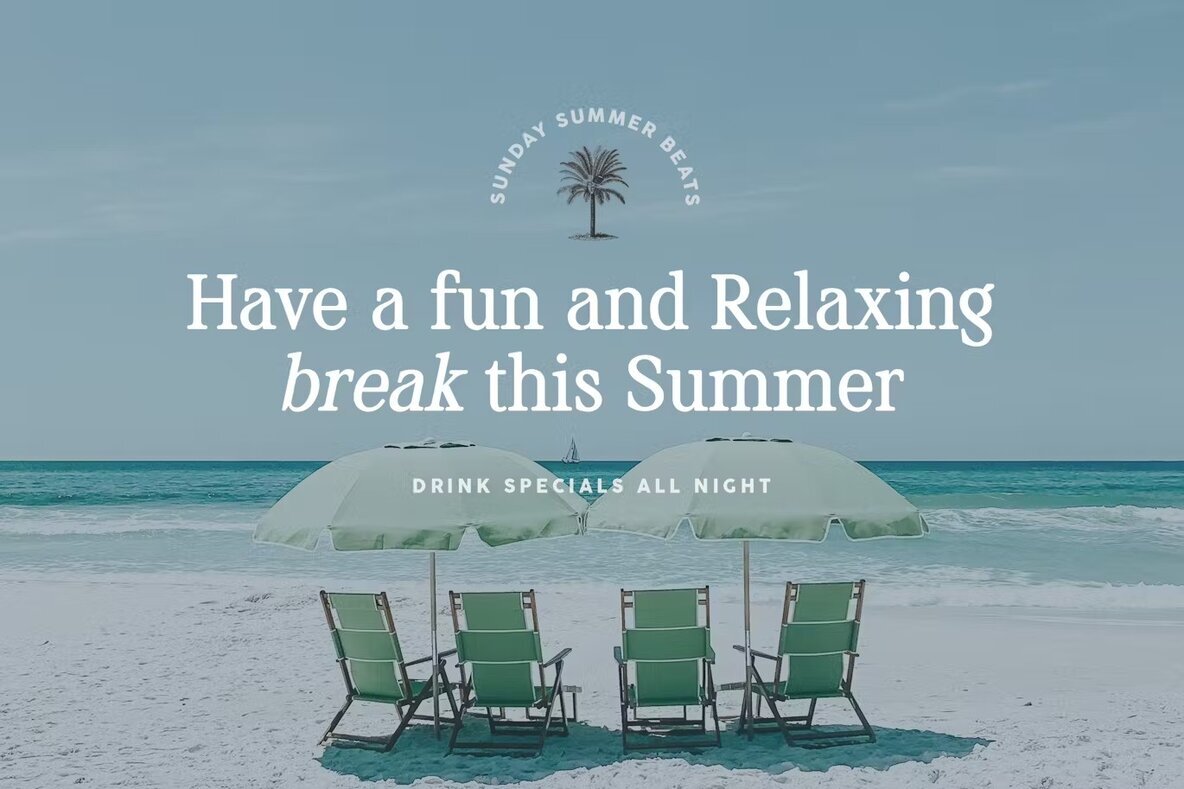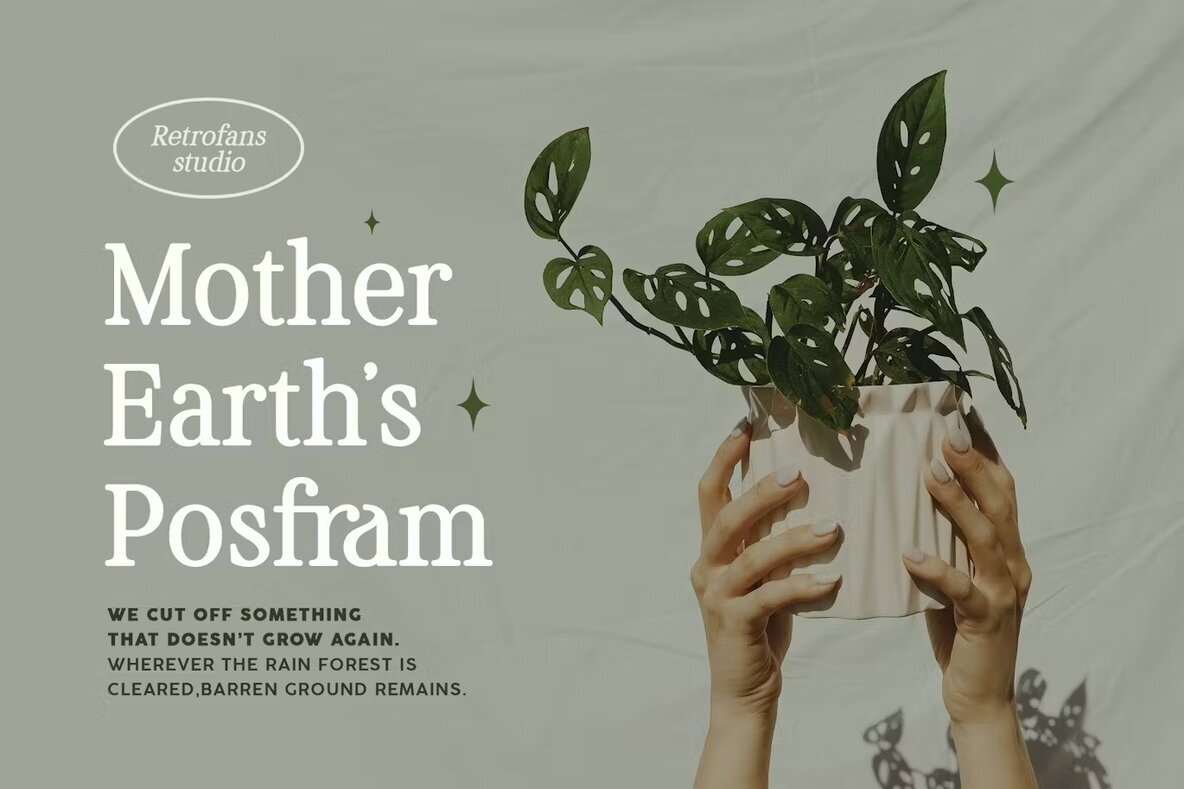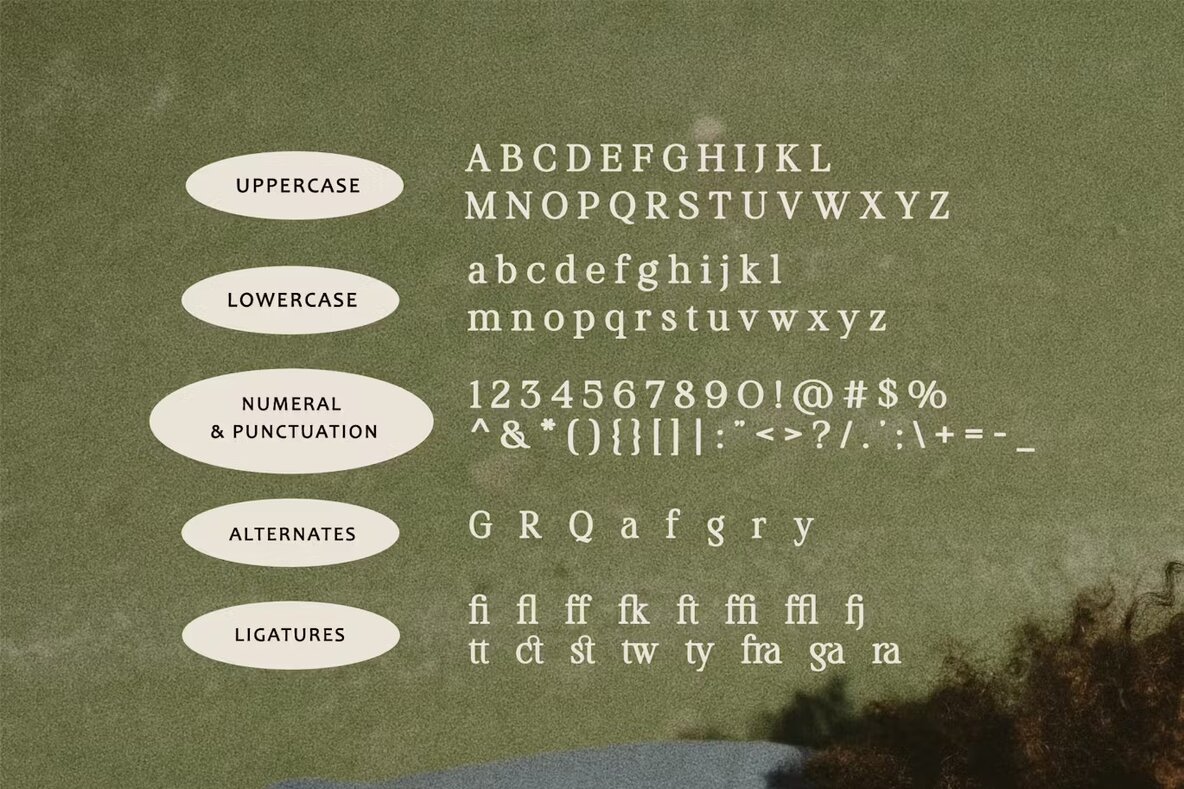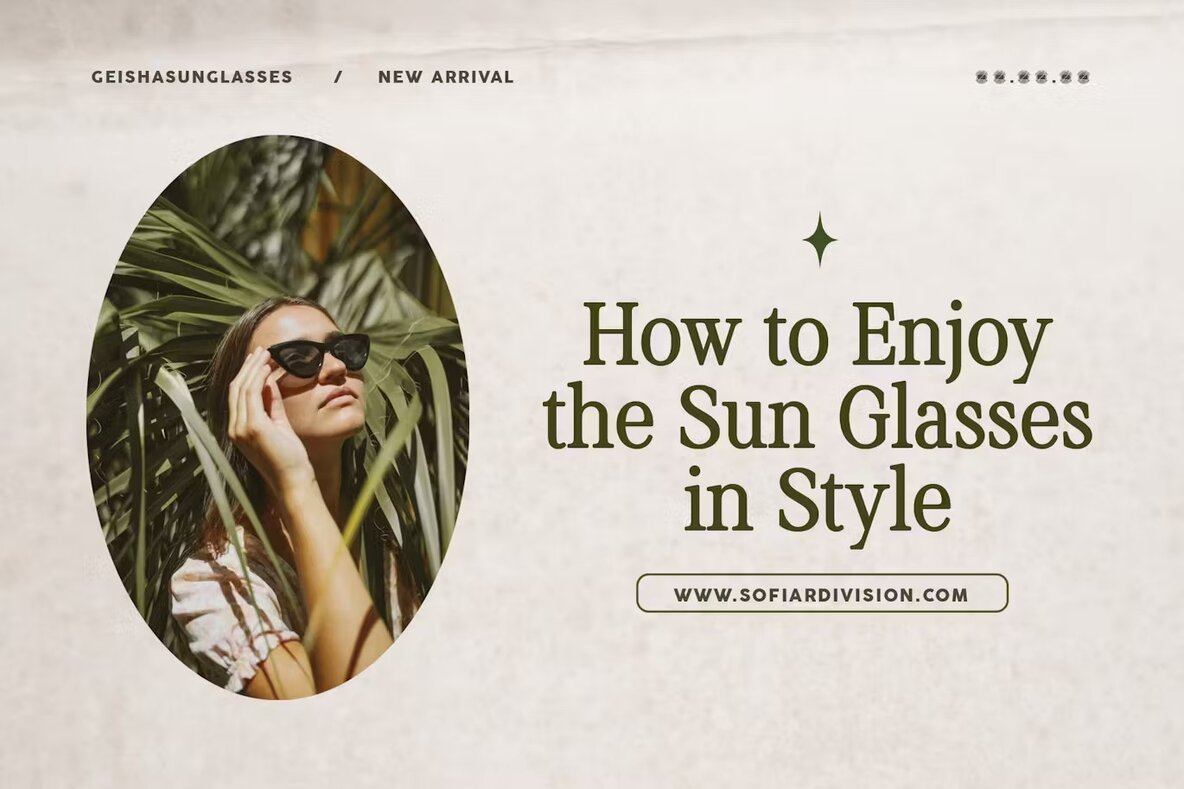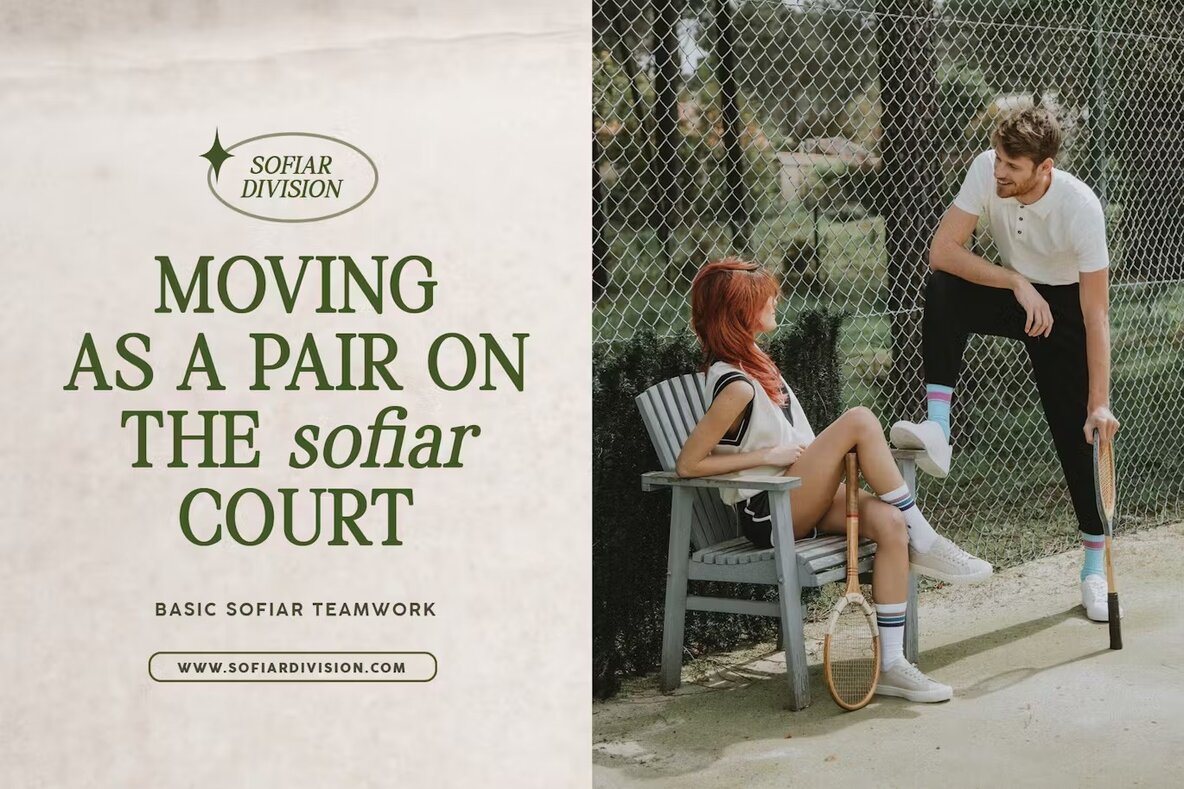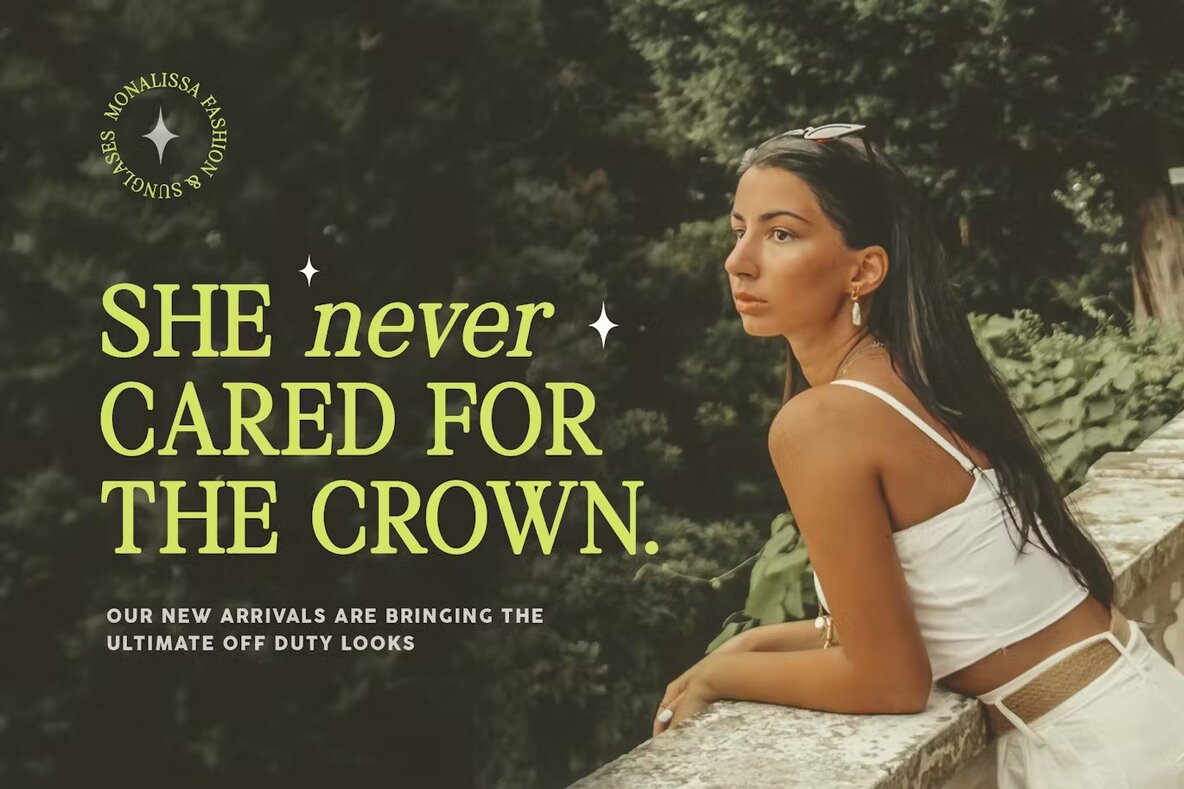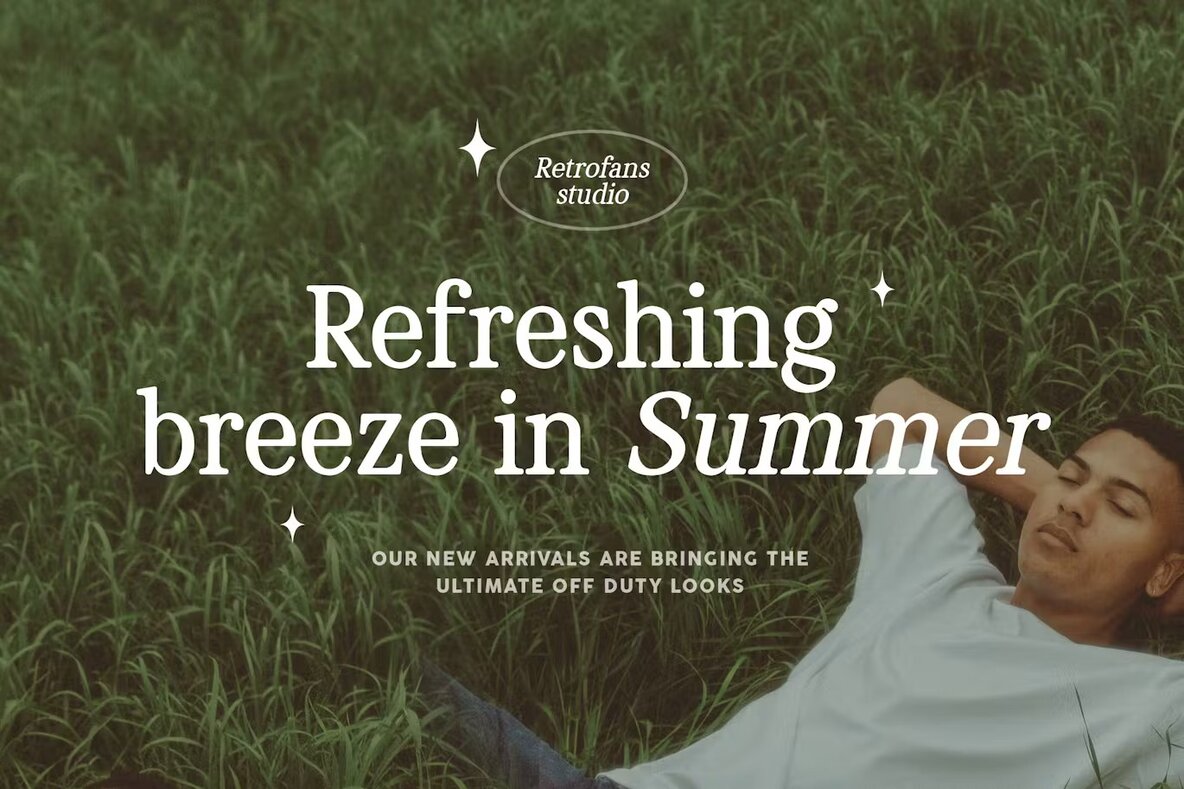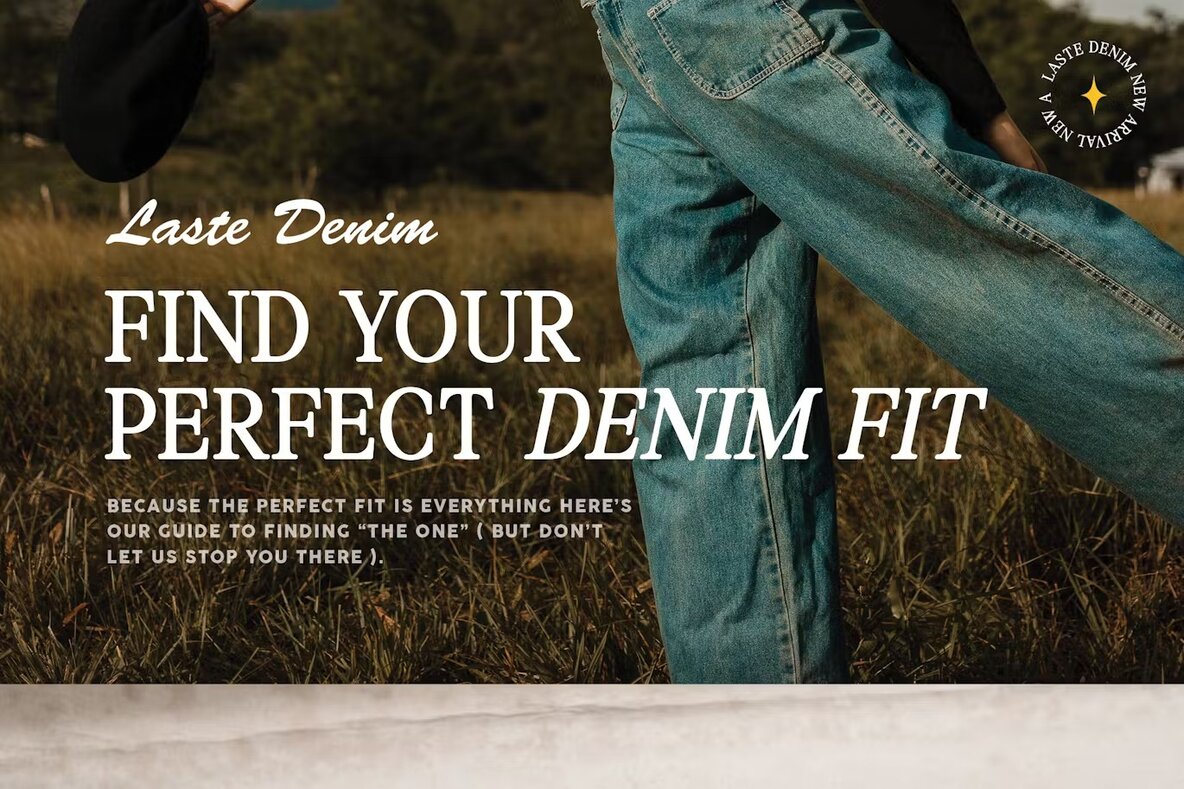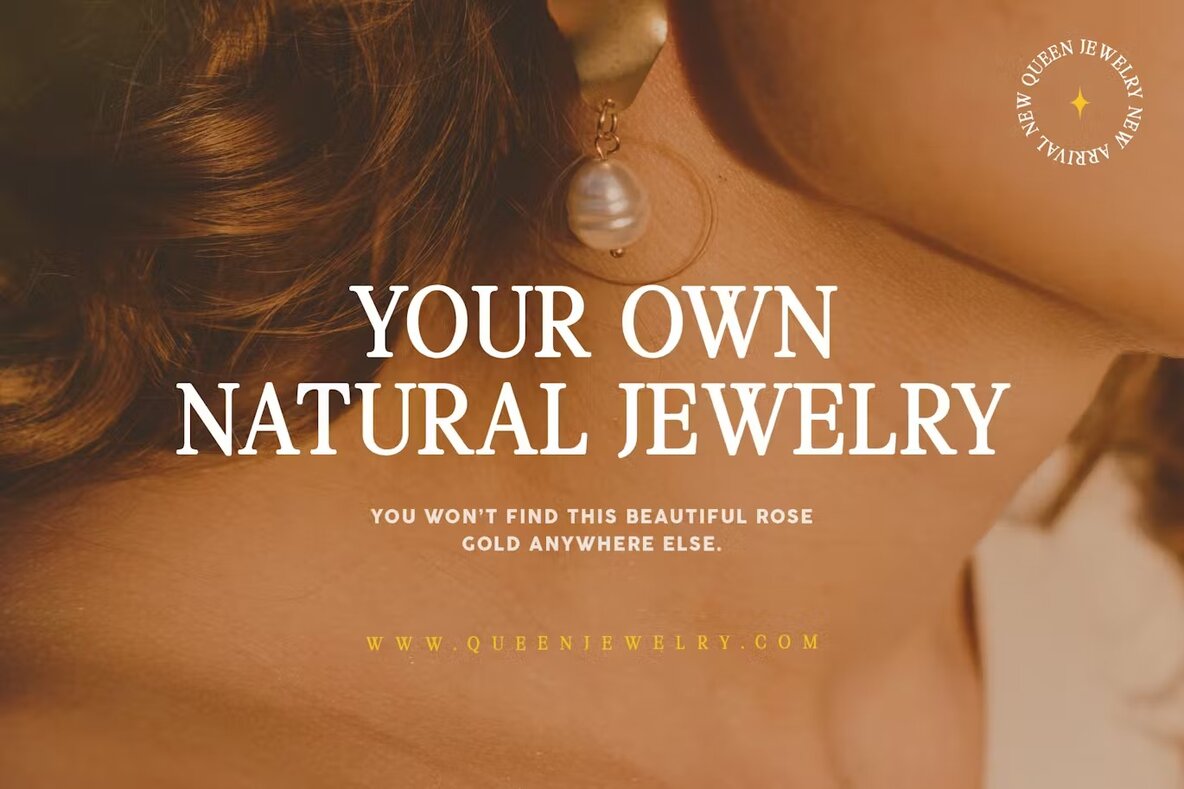
Retrofans Font
Retrofans Regular
Retrofans Oblique
Retrofans Serif is a classic retro display/headline serif font that captures the essence of the 80s and 90s vibes. With its bold and nostalgic design, this font is perfect for creating eye-catching headlines, posters, logos, and designs that require a touch of vintage charm. Retrofans Serif is available in two styles: Regular and Oblique. The Regular style offers a straightforward and timeless appeal, while the Oblique style adds a subtle slanted effect for a dynamic and playful look. This font features distinct serifs, bold letterforms, and playful curves that instantly transport you back to the golden era of retro aesthetics. Its expertise lies in delivering an authentic and captivating typography experience, making it an ideal choice for designers